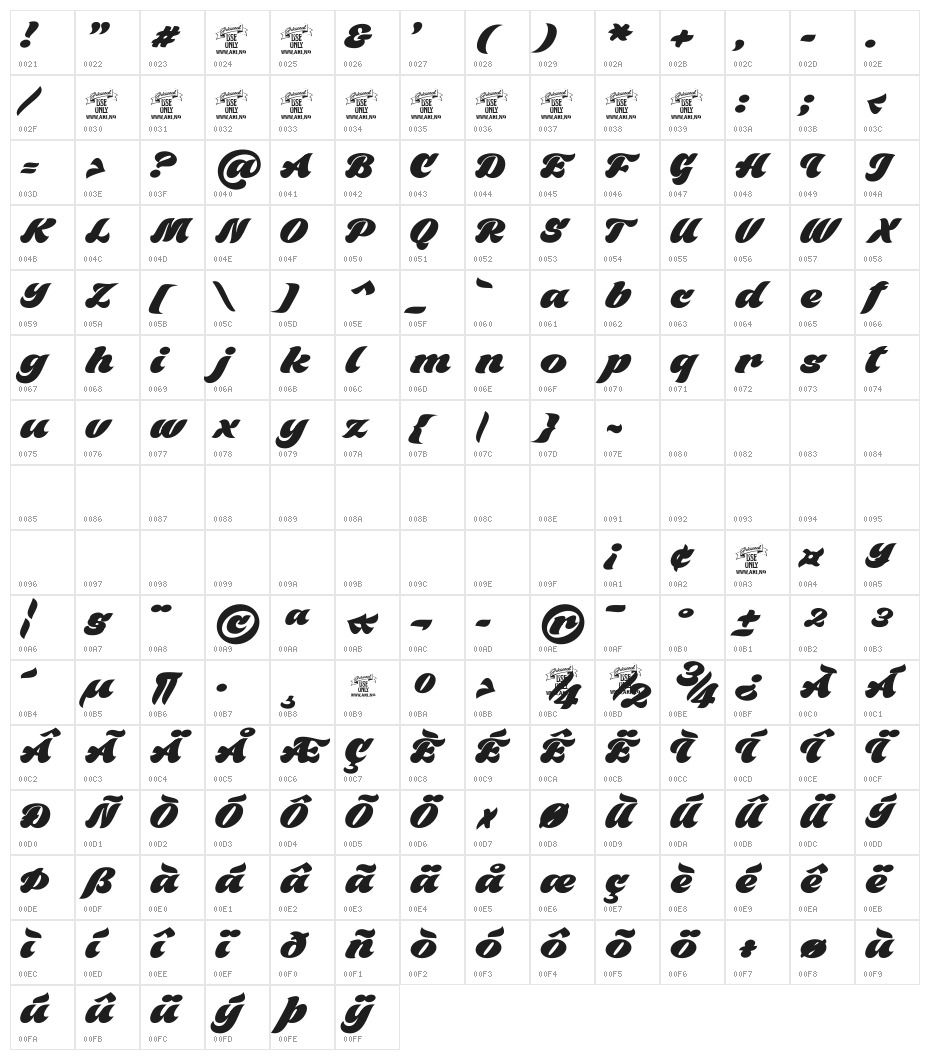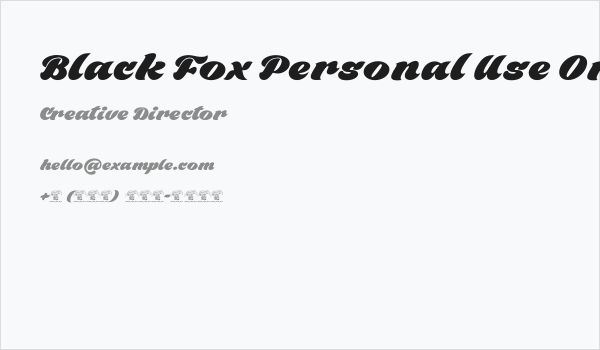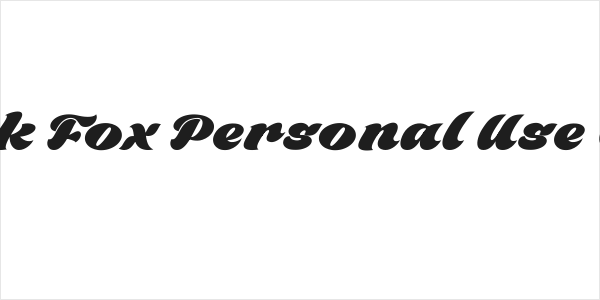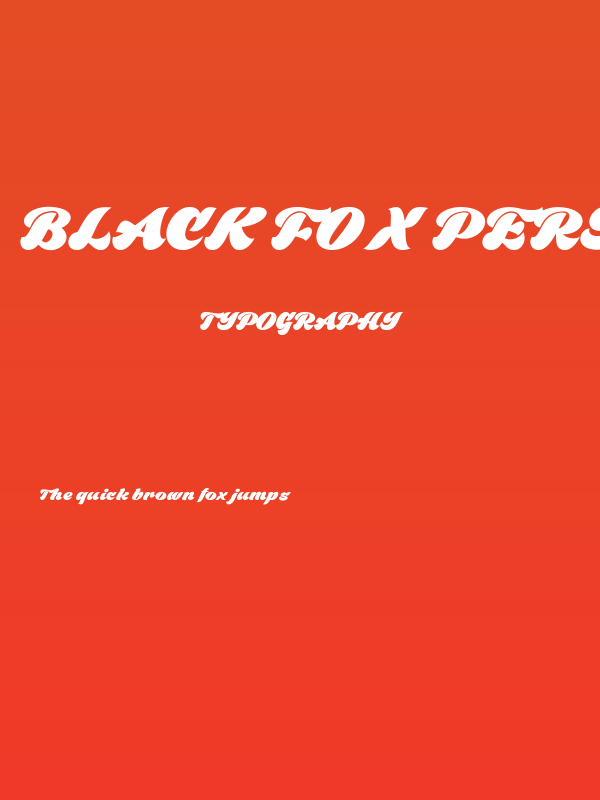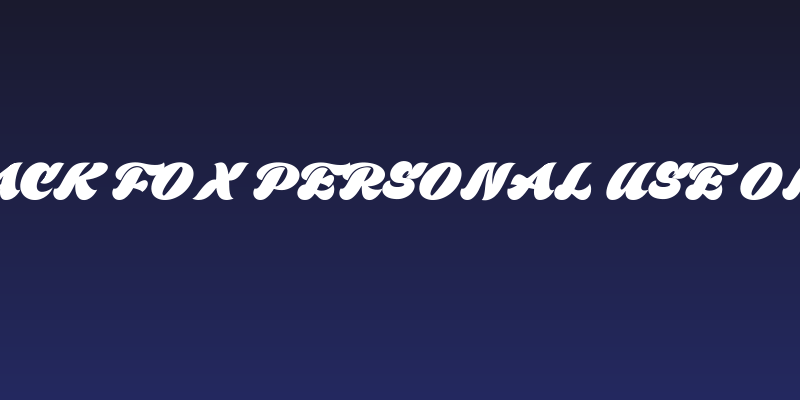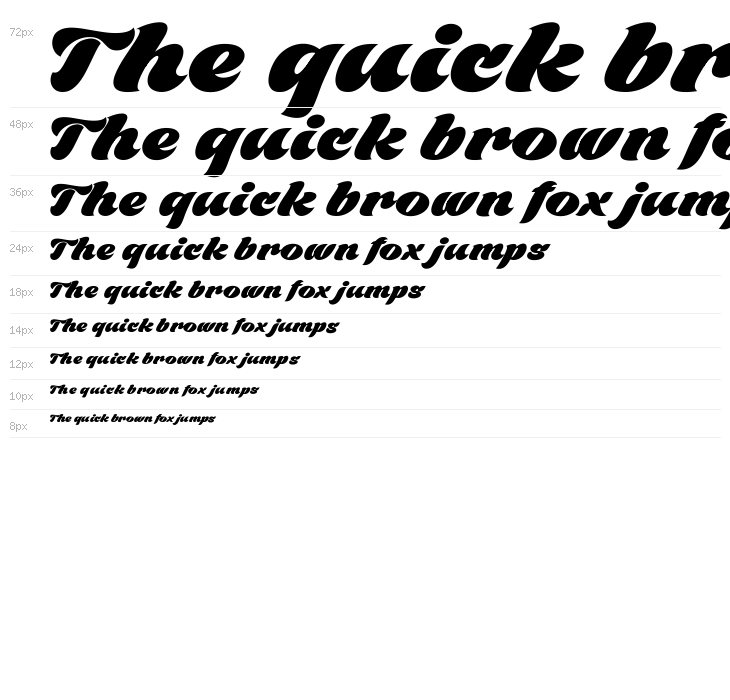
Black Fox Personal Use Only Font
Black Fox Personal Use Only Description
This font features a bold and dynamic script style with a strong presence. The characters are closely connected, creating a flowing and cohesive look. The uppercase letters are particularly striking, with exaggerated curves and flourishes that add a sense of movement and elegance. The lowercase letters maintain the same fluidity, ensuring consistency across the text. The numbers and special characters are designed to match the overall style, making them suitable for decorative purposes. The font's high contrast in stroke thickness enhances its readability while maintaining its decorative appeal.
| Proposed Projects | Ideal for branding, logos, invitations, and headlines that require a bold and elegant touch. |